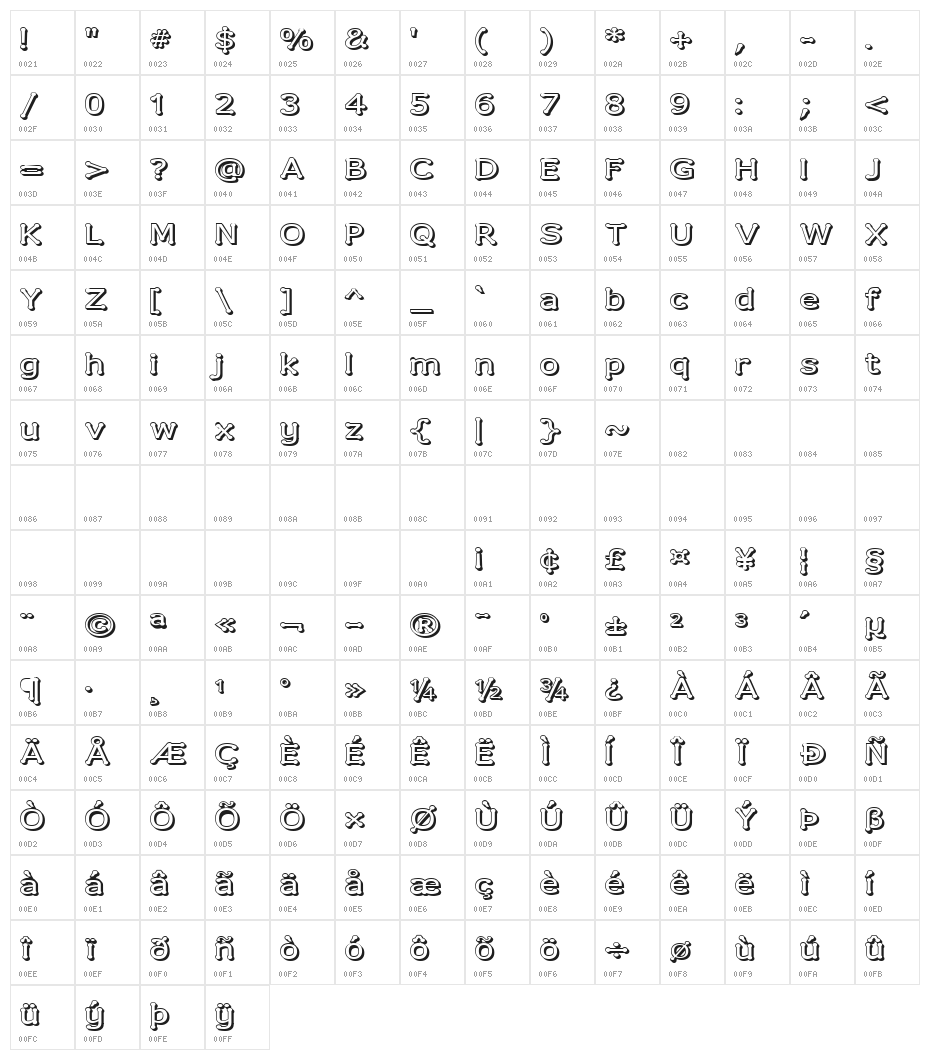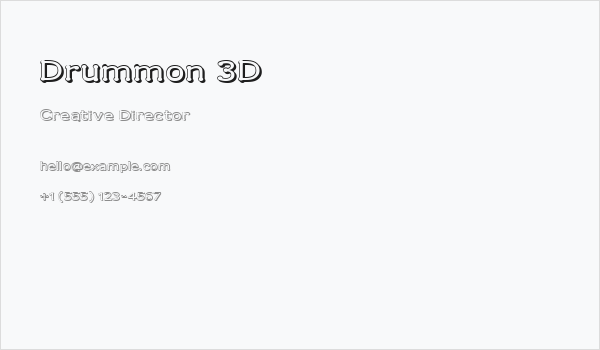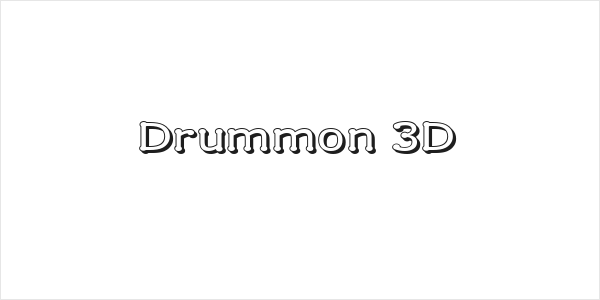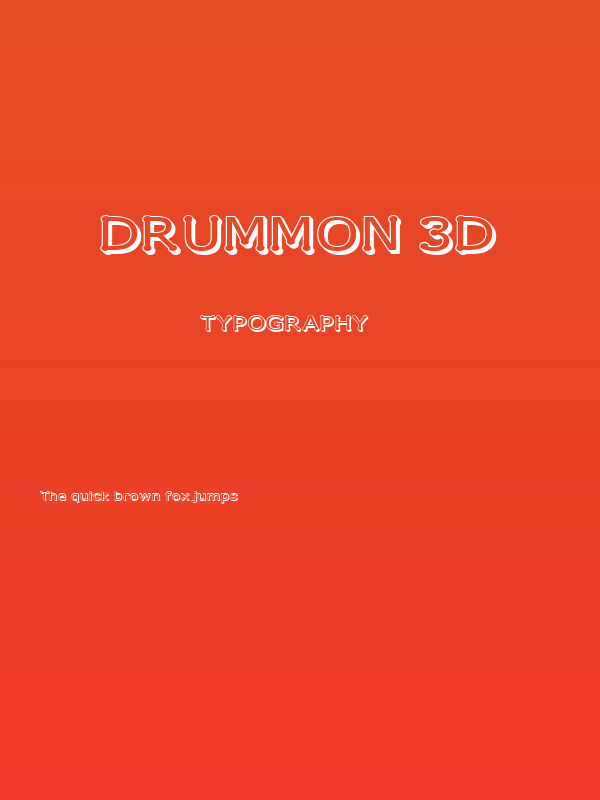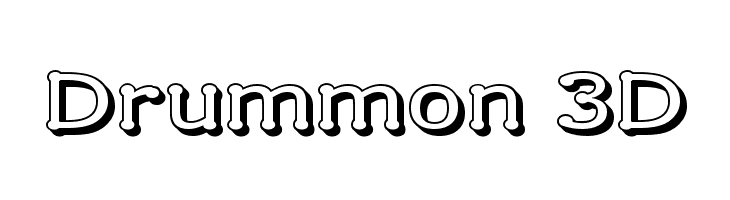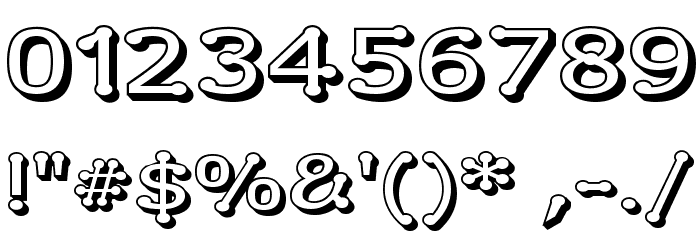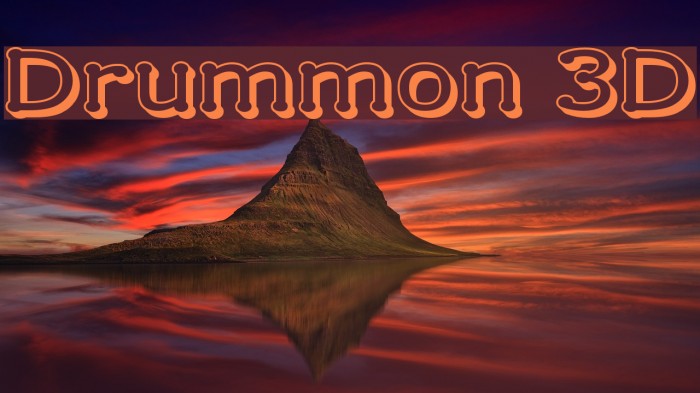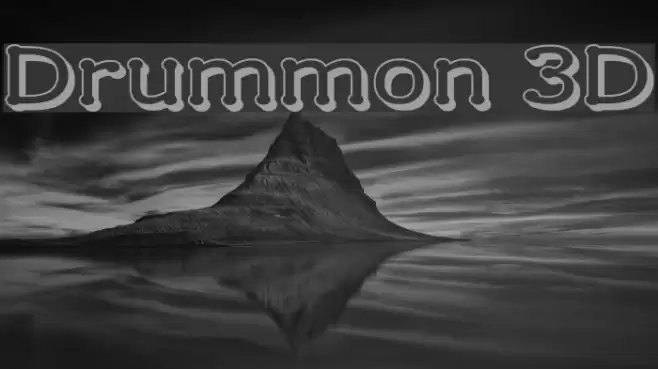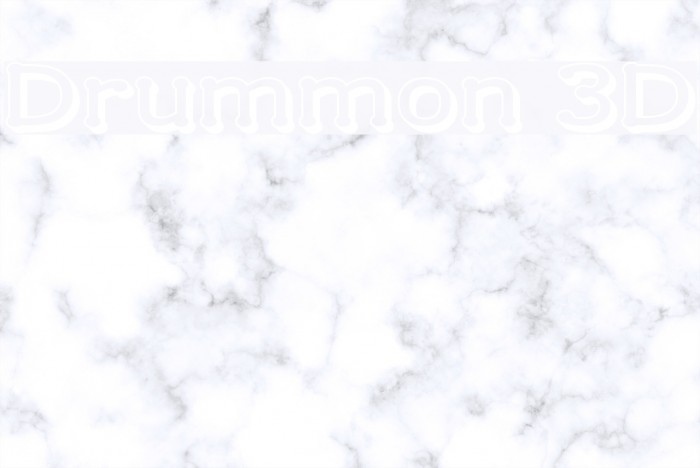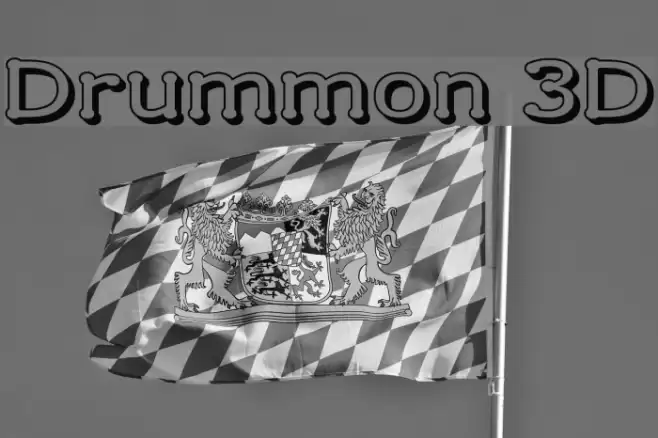
Drummon 3D Font
Drummon 3D Description
This font features a bold, three-dimensional effect that gives it a striking and playful appearance. The characters are outlined with a thick black border, creating a shadow-like effect that enhances its visibility and impact. The letters are uppercase and lowercase, with numerals and a variety of special characters, all maintaining a consistent style. The font's design is clean yet dynamic, making it suitable for eye-catching displays. Its playful nature is balanced by a structured form, ensuring readability while adding a unique visual flair.
| Proposed Projects | Ideal for posters, headlines, children's books, and creative branding projects. |